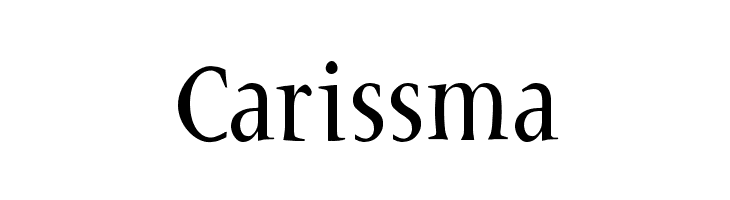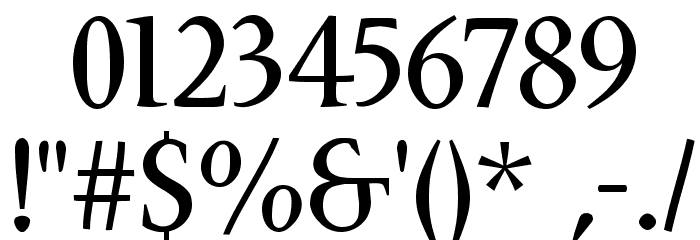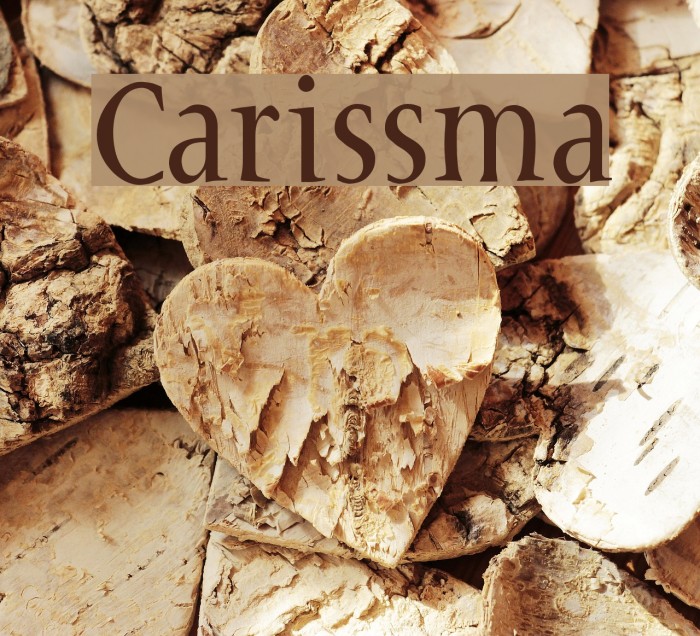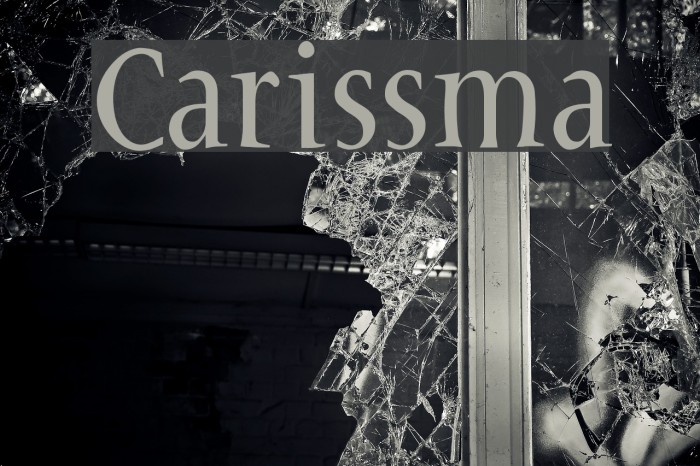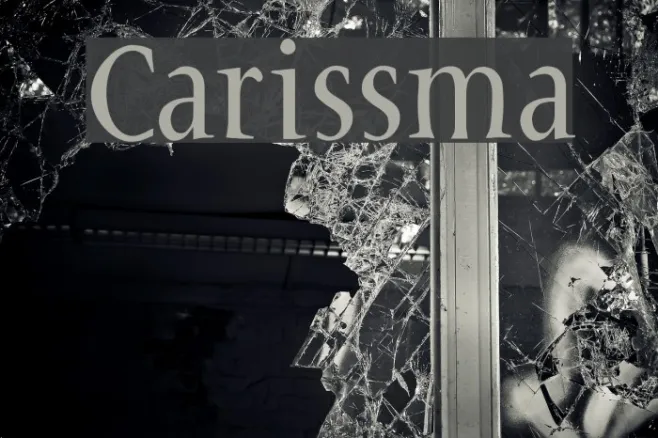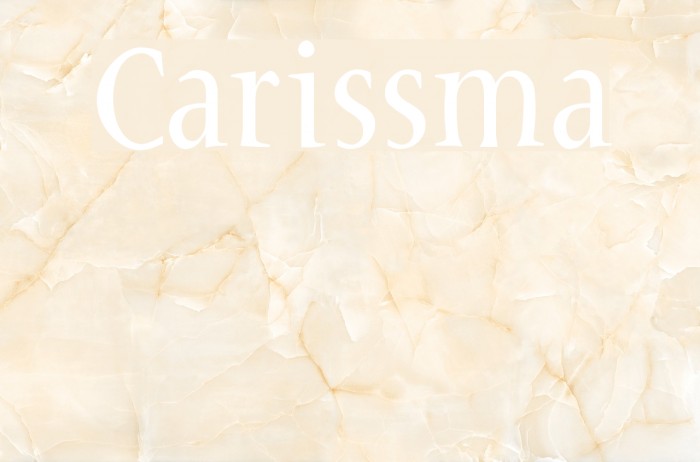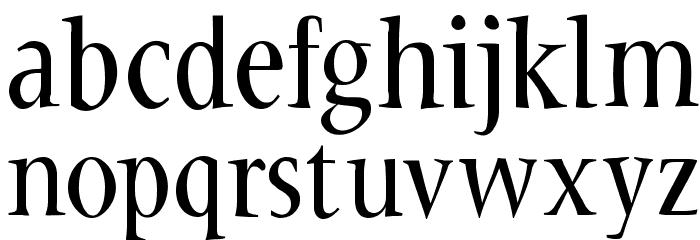
Carissma Font
This font features a classic serif style with elegant and slightly elongated letterforms. The serifs are pronounced, adding a touch of sophistication and readability. The uppercase letters are bold and commanding, while the lowercase letters maintain a graceful flow. The numerals are clear and distinct, making them suitable for both text and display purposes. Special characters are well-integrated, maintaining the overall aesthetic of the font. The design is balanced, with a medium contrast between thick and thin strokes, providing a harmonious appearance.
A classic serif font with elegant, elongated letterforms and medium contrast.
• Proposed Projects: Ideal for editorial design, book covers, formal invitations, and branding projects that require a touch of elegance.
• Category: Serif
• Overall Style: Classic
• Use Case: Headlines, Body text, Logos